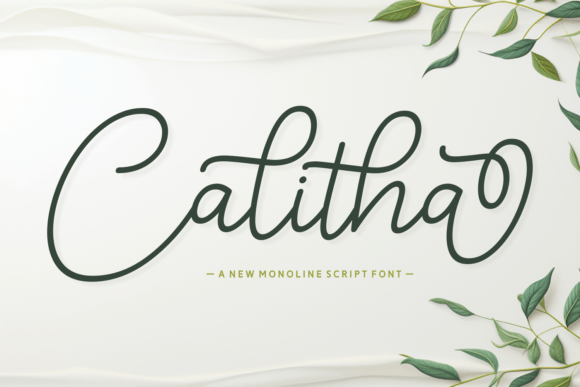
The Elusive Font: A Designer’s Journey with Calitha
I still remember the project like it was yesterday. I was working on a branding campaign for a high-end wellness retreat, and I was determined to nail the perfect font. The client wanted something that exuded elegance, sophistication, and a touch of natural charm. I scoured the internet, tried out countless fonts, but nothing seemed quite right. That was when I stumbled upon Calitha, a refined monoline script font that stole my heart. In this article, I’ll share my experience with Calitha, its features, and how to make the most of this beautiful font.
An Honest Review of Calitha
What I Love About Calitha ✨
- ✅ Smooth curves and flowing strokes that create a minimalist yet artistic aesthetic
- ✅ Perfect for designs that demand sophistication, such as branding, logos, and event invitations
- ✅ Versatile and can be used for both digital and print projects
- ⚠️ Limited character set, which may not be suitable for projects that require a wide range of languages or special characters
- ⚠️ May not be the best choice for body text, as it’s designed for headlines and titles
- Experiment with OpenType features, such as ligatures and stylistic alternates, to add visual interest to your text
- Explore the glyphs and OpenType features to add unique touches to your design
The Story Behind Calitha
Calitha was designed by a team of typographers who wanted to create a font that embodied elegance and sophistication. Inspired by classic calligraphy and modern digital design, Calitha is the result of meticulous craftsmanship and attention to detail. The font’s creator aimed to produce a typeface that would be both beautiful and functional, suitable for a wide range of design projects.
Q: Is Calitha suitable for body text?
A: While Calitha is a beautiful font, it’s designed for headlines and titles. For body text, consider using a font with better legibility and readability.